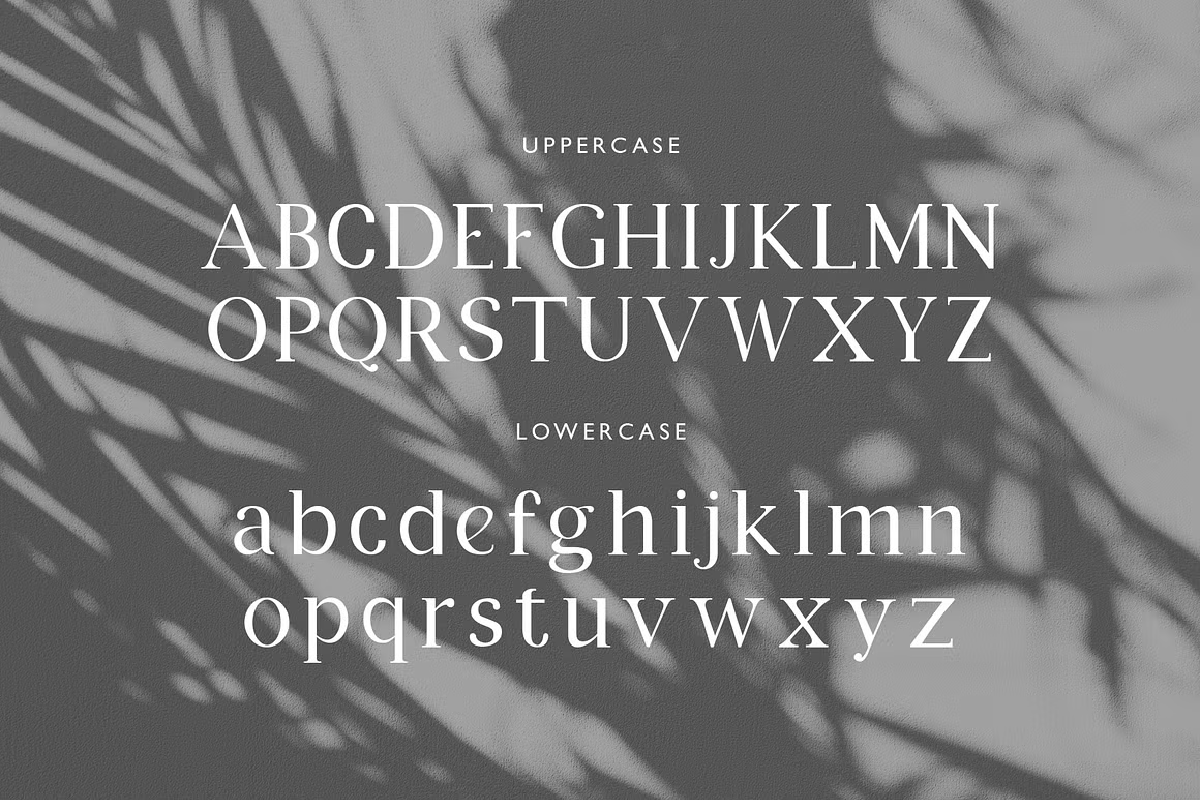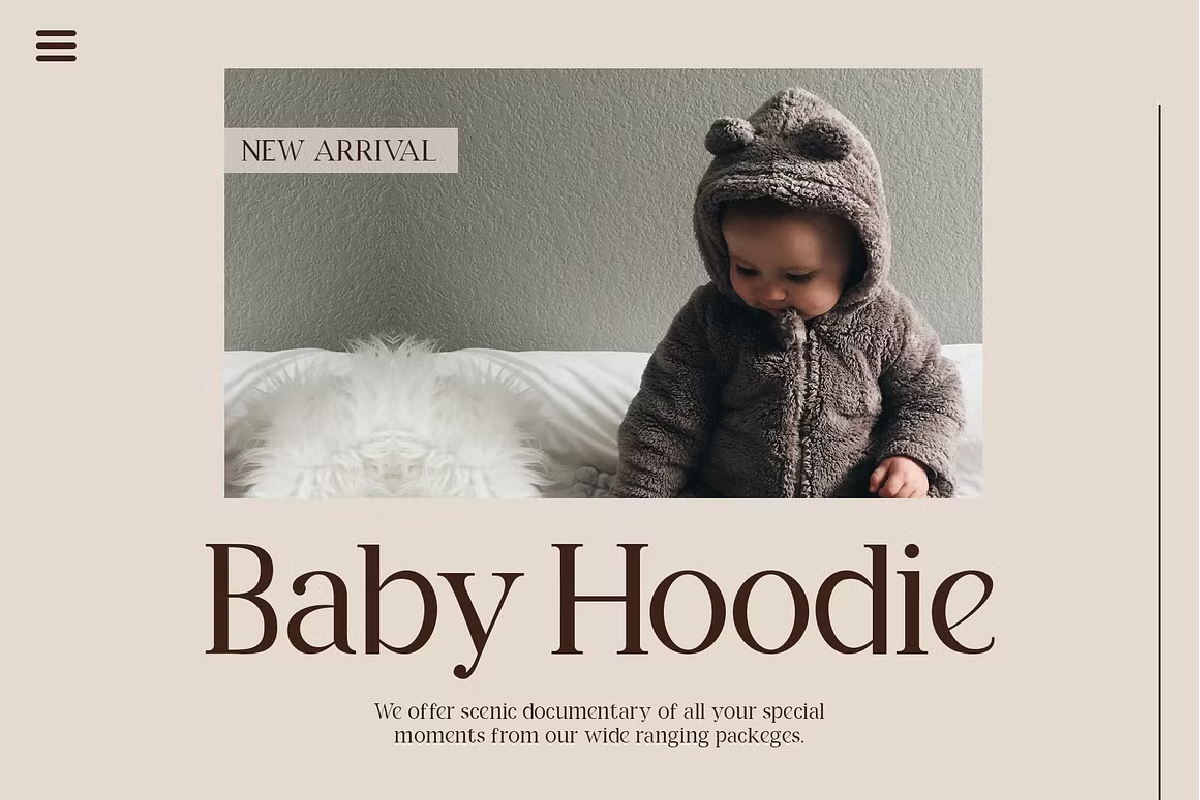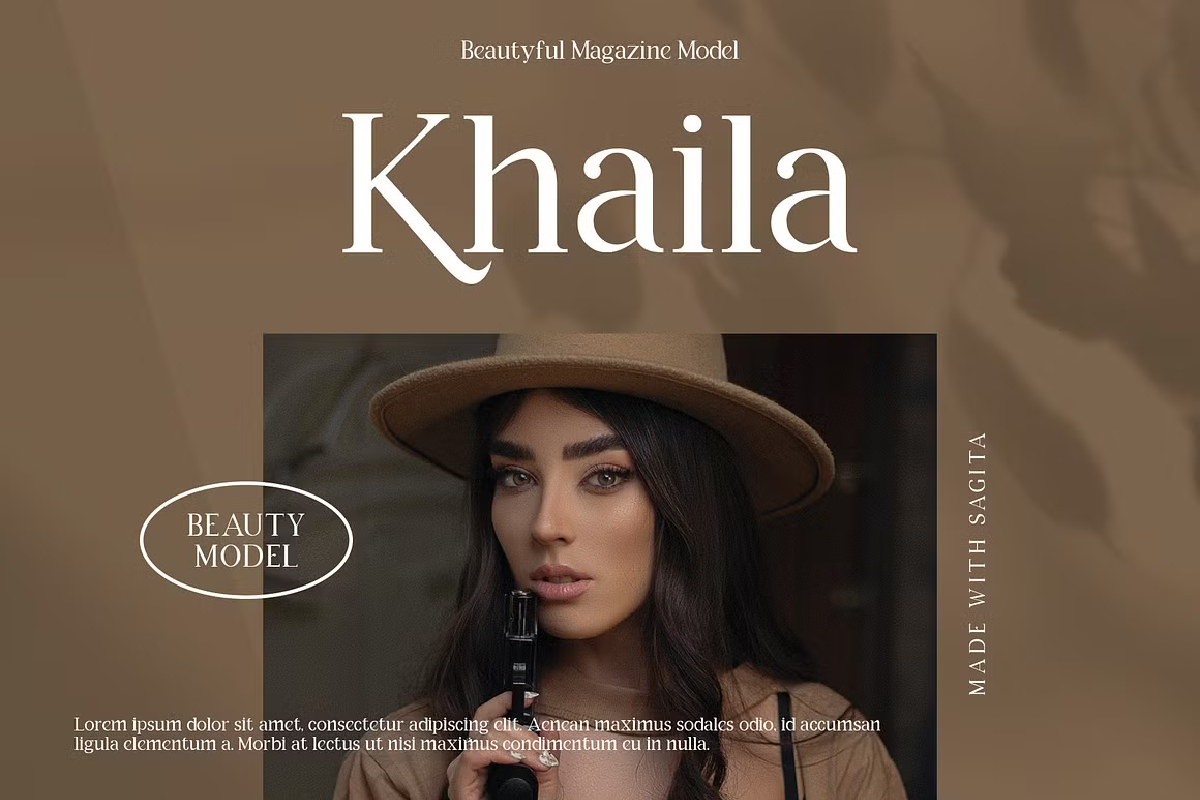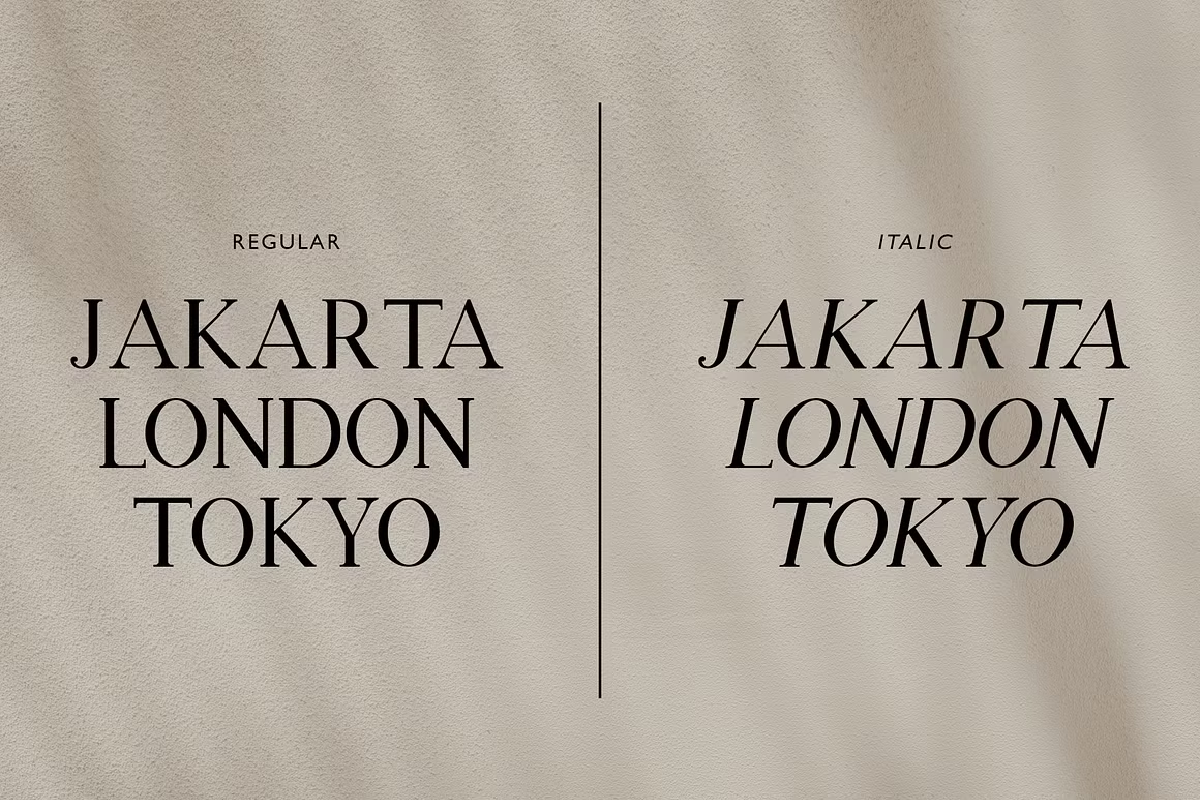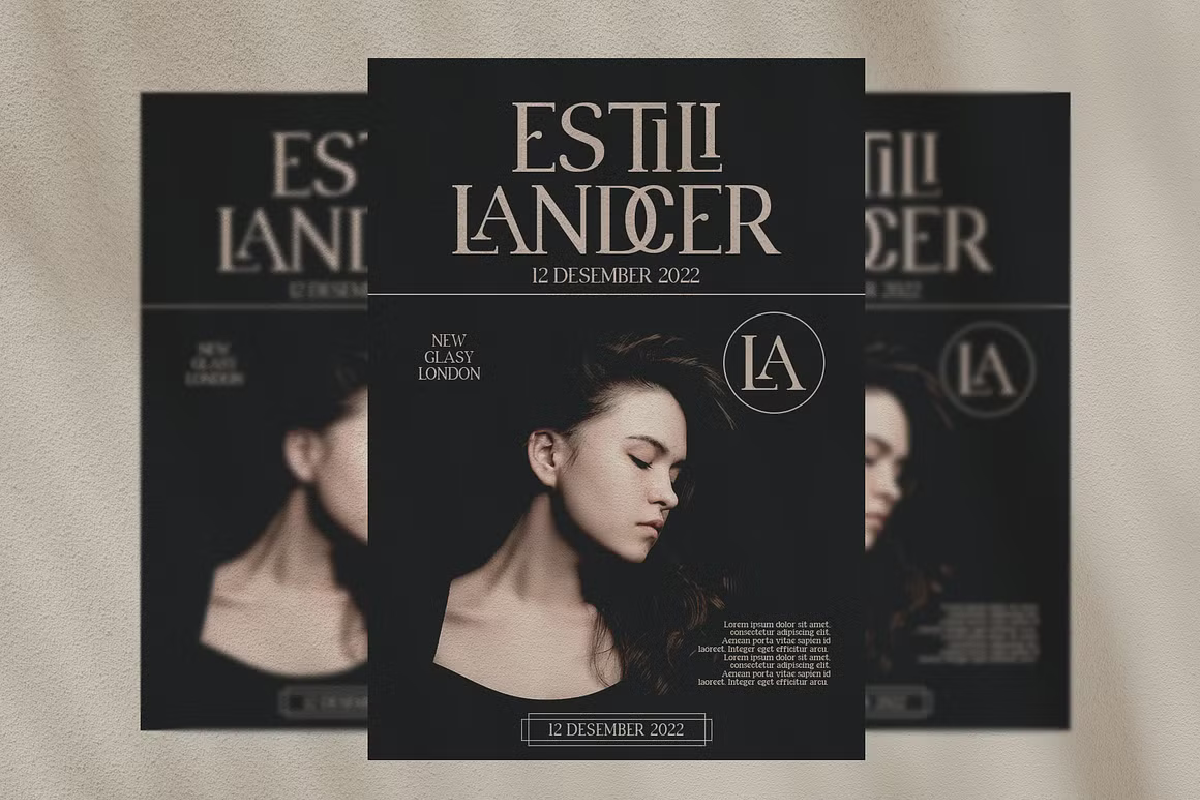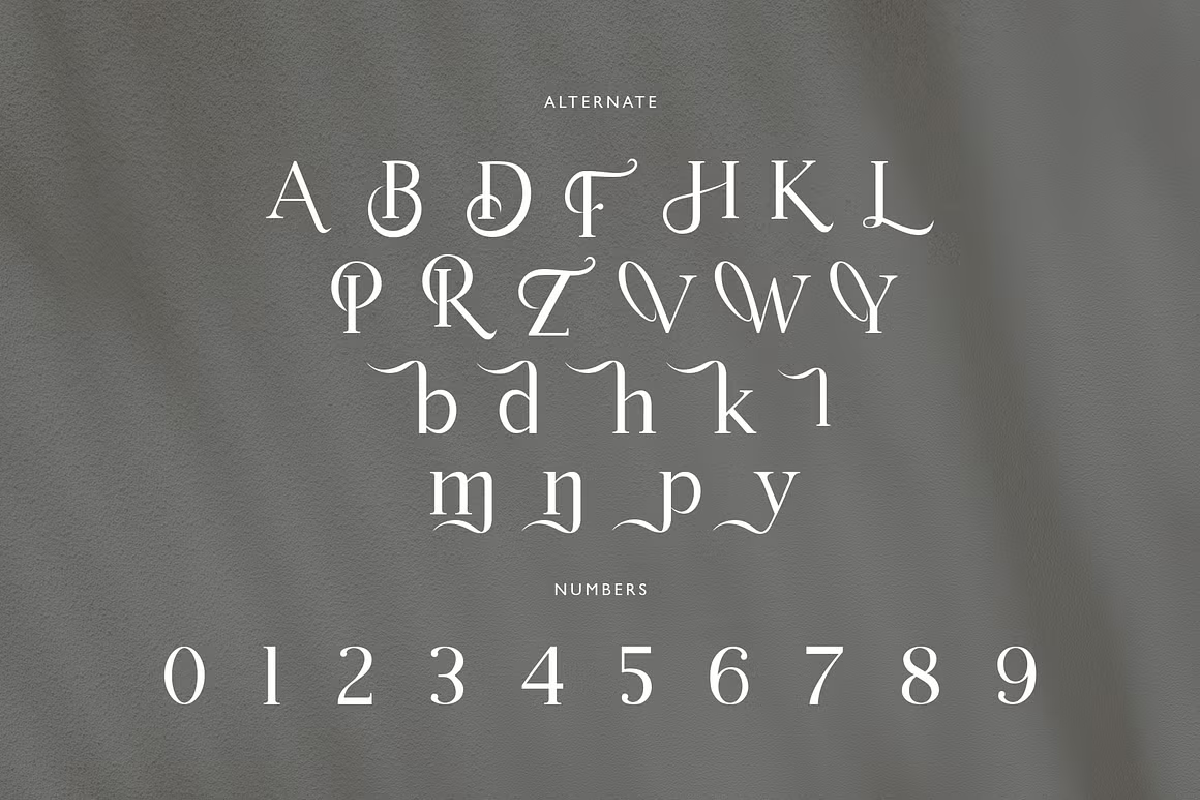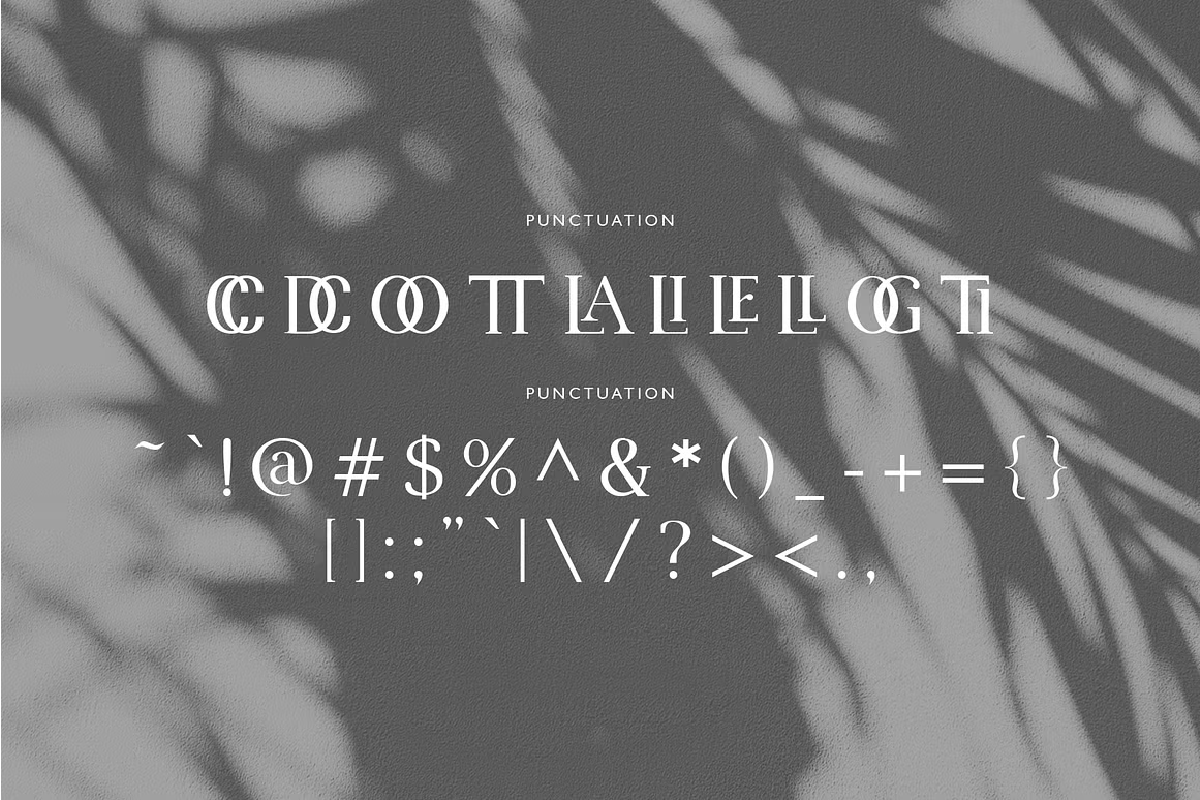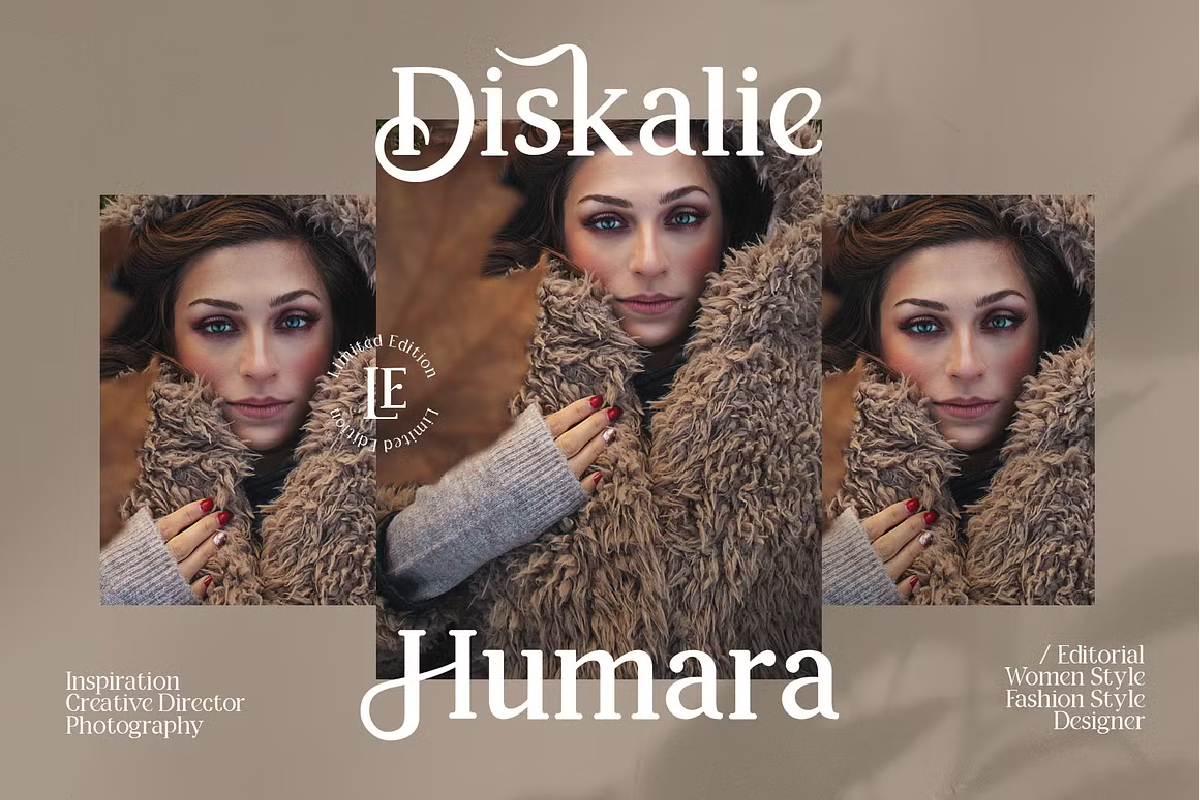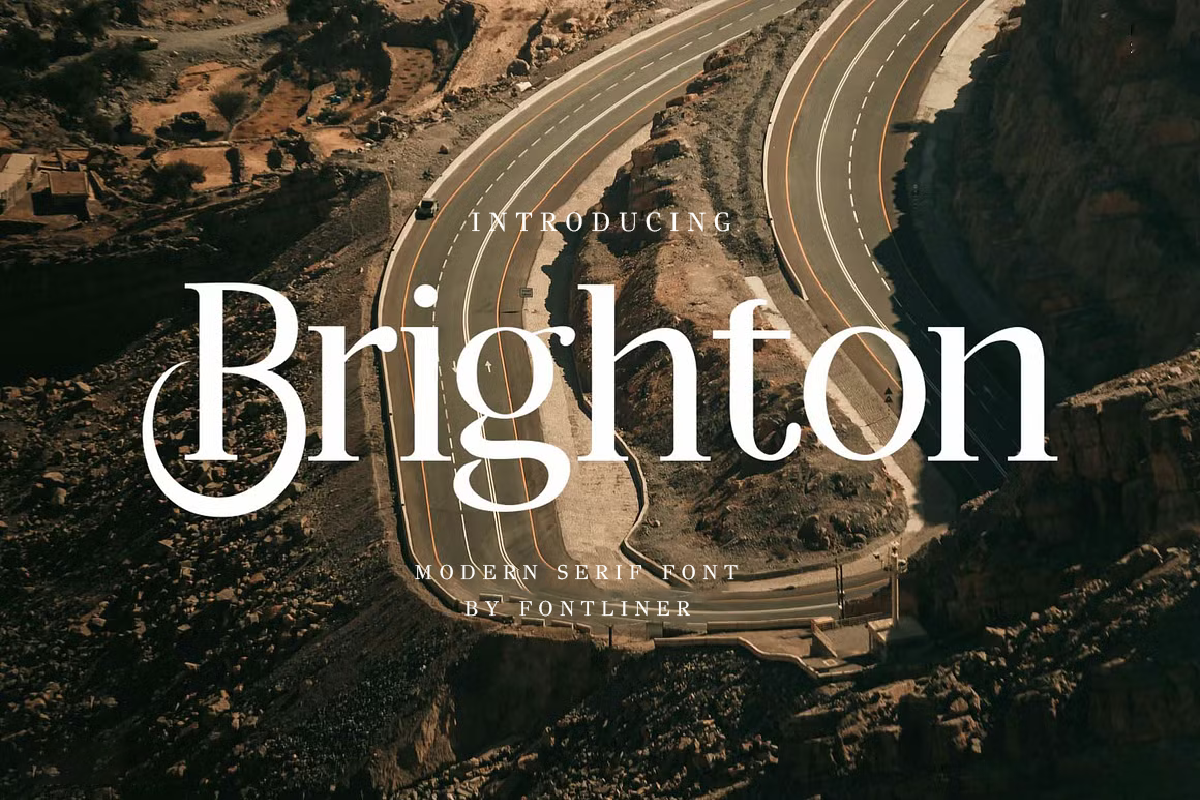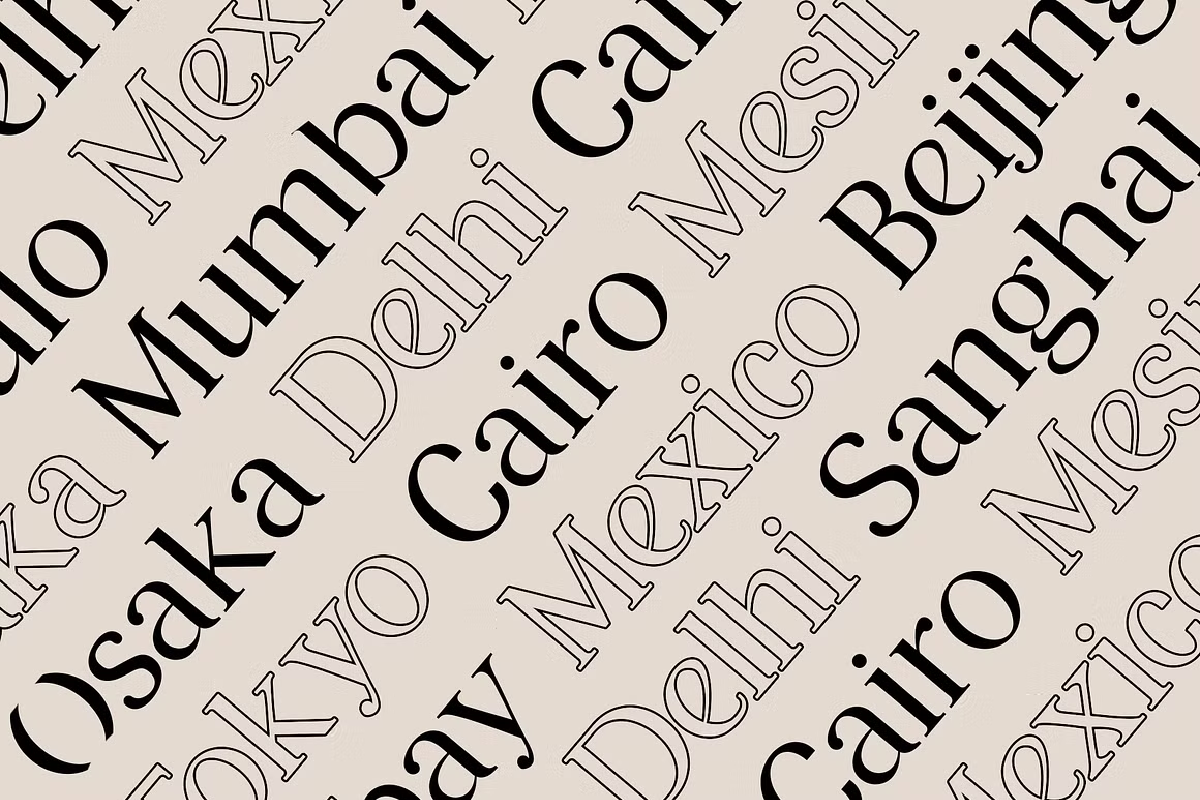
Brighton Font
Brighton is a modern serif font with an elegant and clean design. Its bold yet artistic characteristics make it perfect for a variety of design needs, from branding to editorial work. Combining a classic touch with a contemporary style, Brighton delivers a professional, luxurious, and highly readable impression. This font is ideal for logos, headlines, invitations, and other creative projects requiring standout visuals.